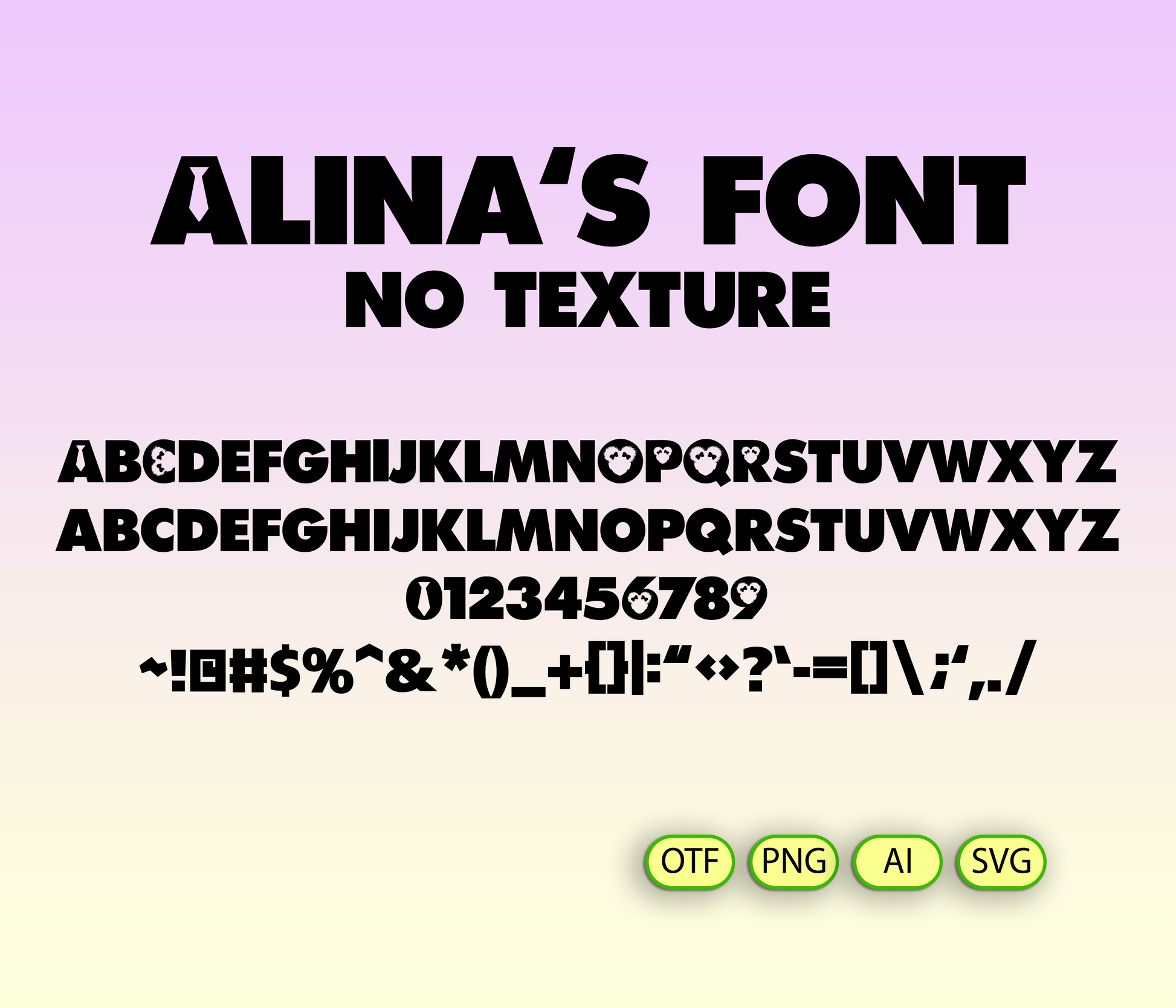
Executive Princess Font
Step into the charming world of a tiny female CEO with our specially designed font. Capturing the perfect blend of girlish charm and boardroom authority, this typeface brings a unique feminine power to any project. Perfect for baby-related designs that need a touch of professional flair with a dash of pink leadership.
Our Little Lady Boss font features a delightful mix of professional structure and feminine whimsy, reflecting the unique duality of a business-minded baby girl. Perfect for:
1. Girl Power Party Materials: Create empowering themed celebrations
2. Baby Shower Invitations: Design sophisticated yet playful announcements
3. Children's Room Decor: Craft inspirational wall art and decorations
4. Birthday Celebrations: Design themed invitations and party supplies
5. Digital Content: Enhance social media posts with girl boss energy
6. Nursery Business Branding: Perfect for female-focused children's services
7. Gift Items: Create empowering presents and keepsakes
8. Educational Materials: Design engaging resources with a feminine touch
Creative Applications
Whether you're planning a girl-powered event, creating inspirational content, or designing nursery decorations, this font brings the perfect combination of cuteness and executive charm. Transform your projects with a typeface that speaks to both the playful and professional sides of female childhood leadership.